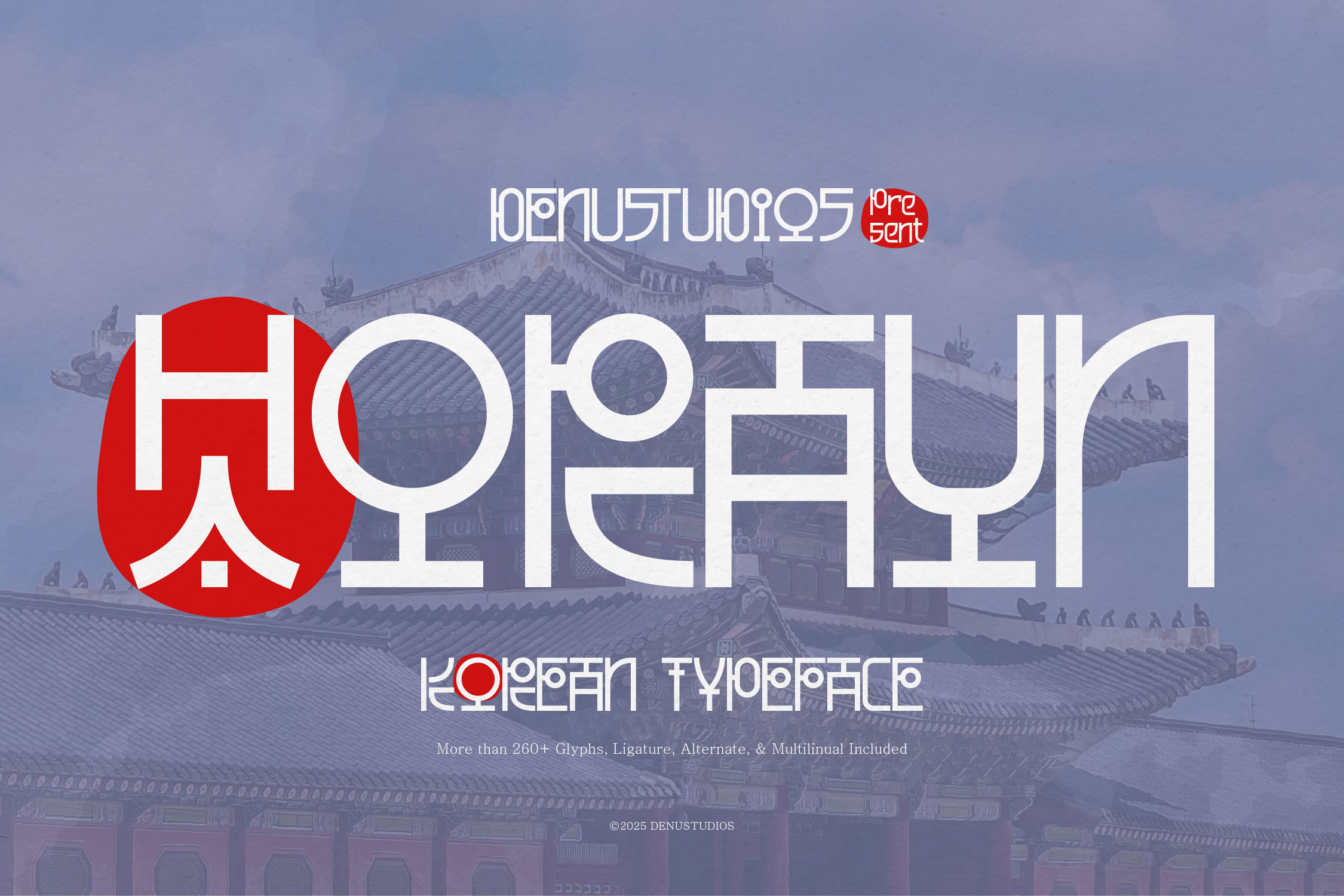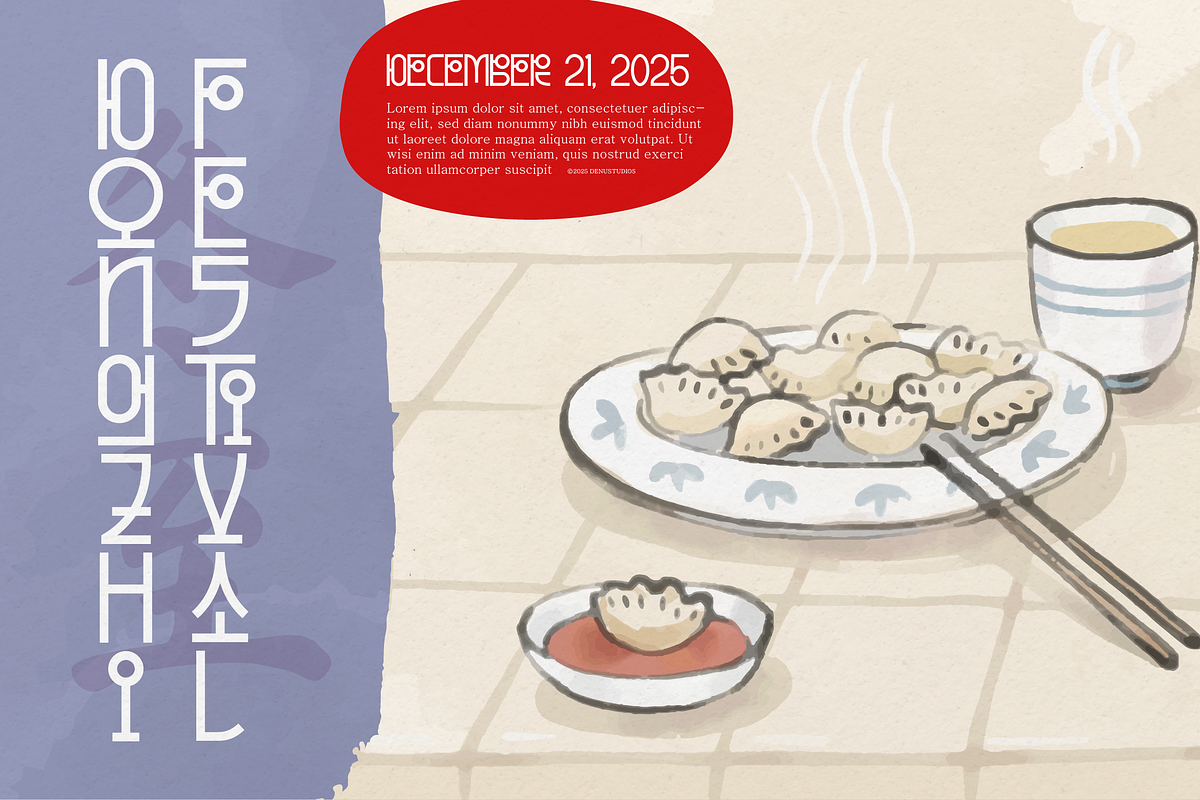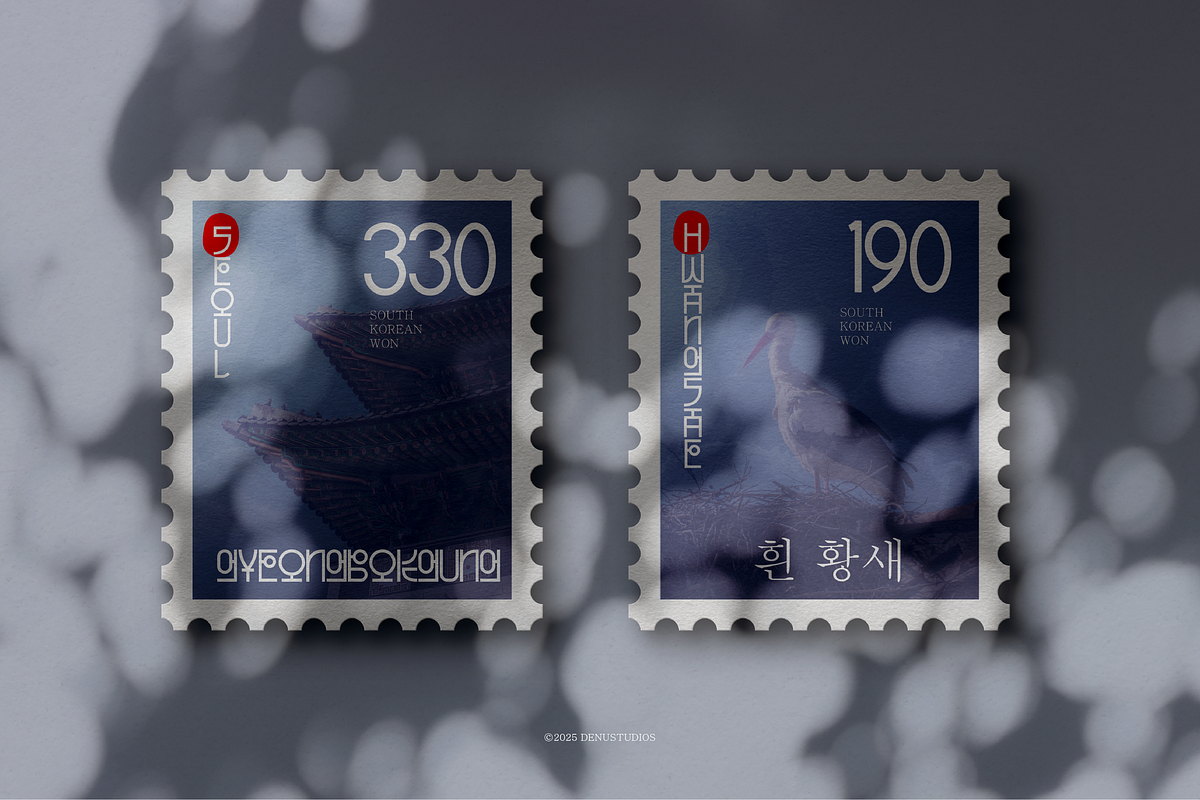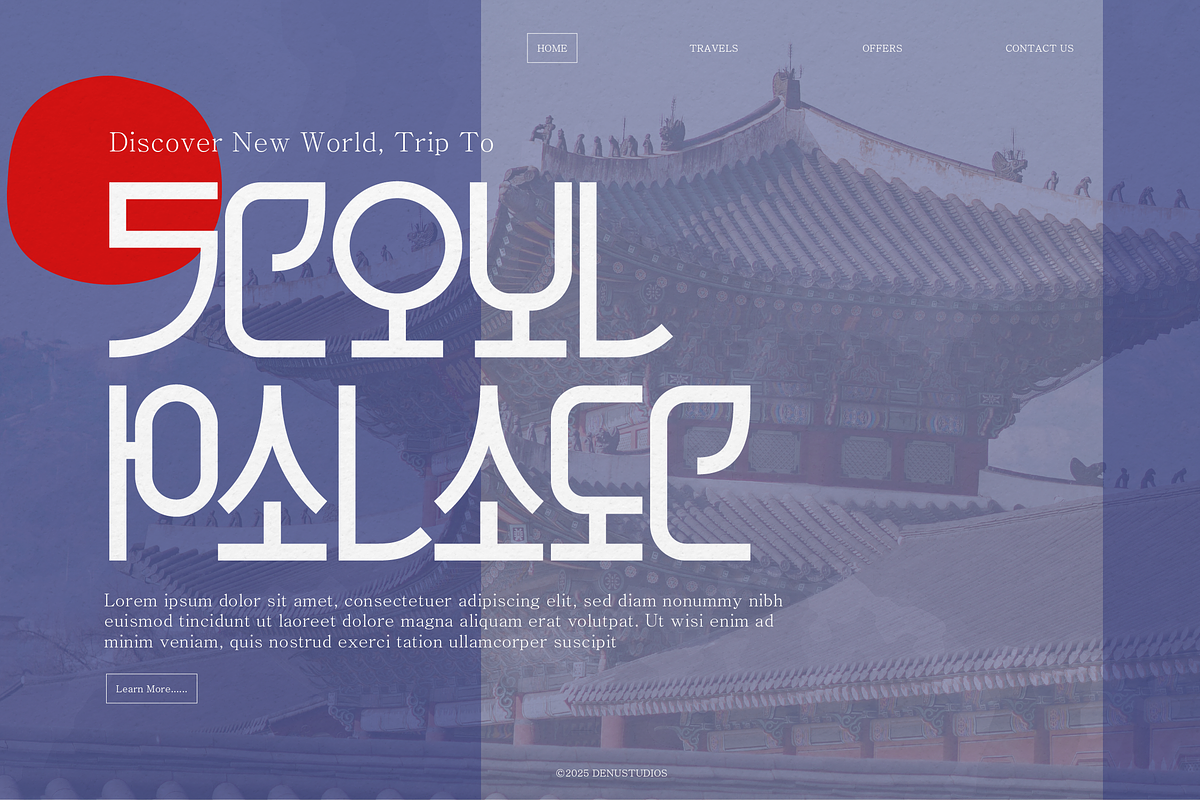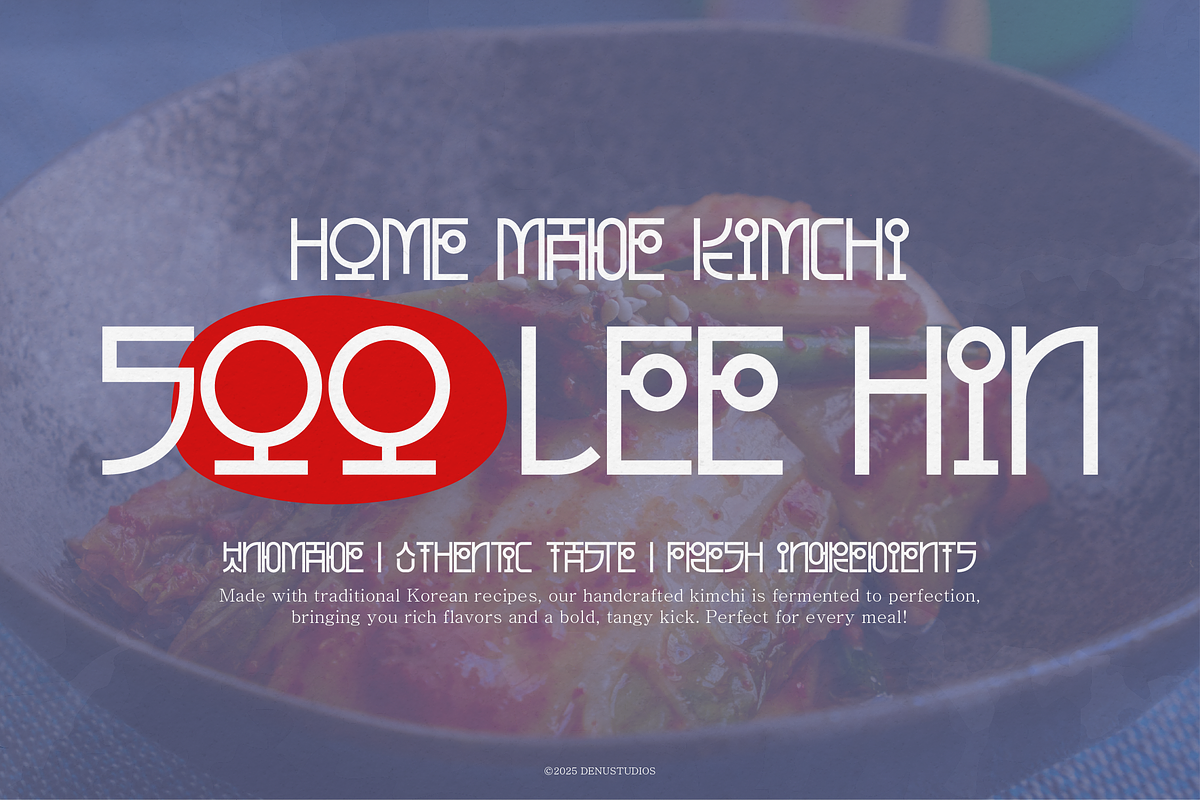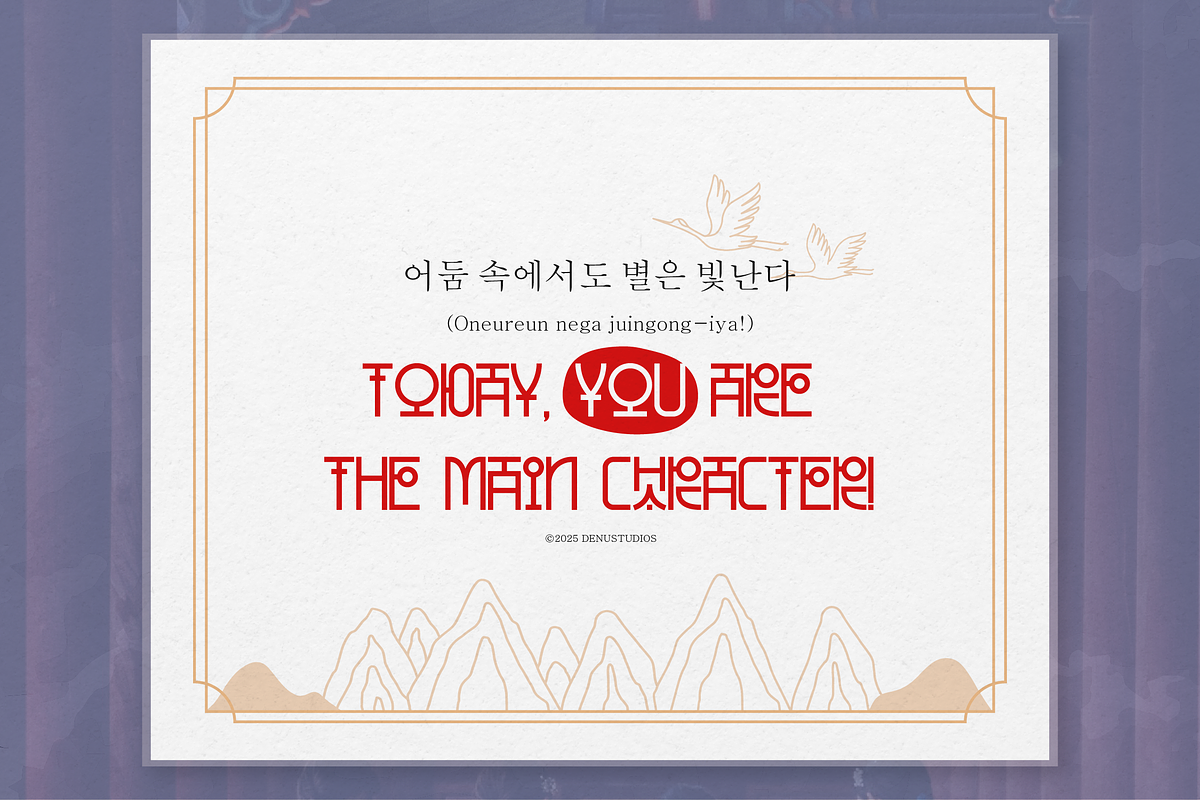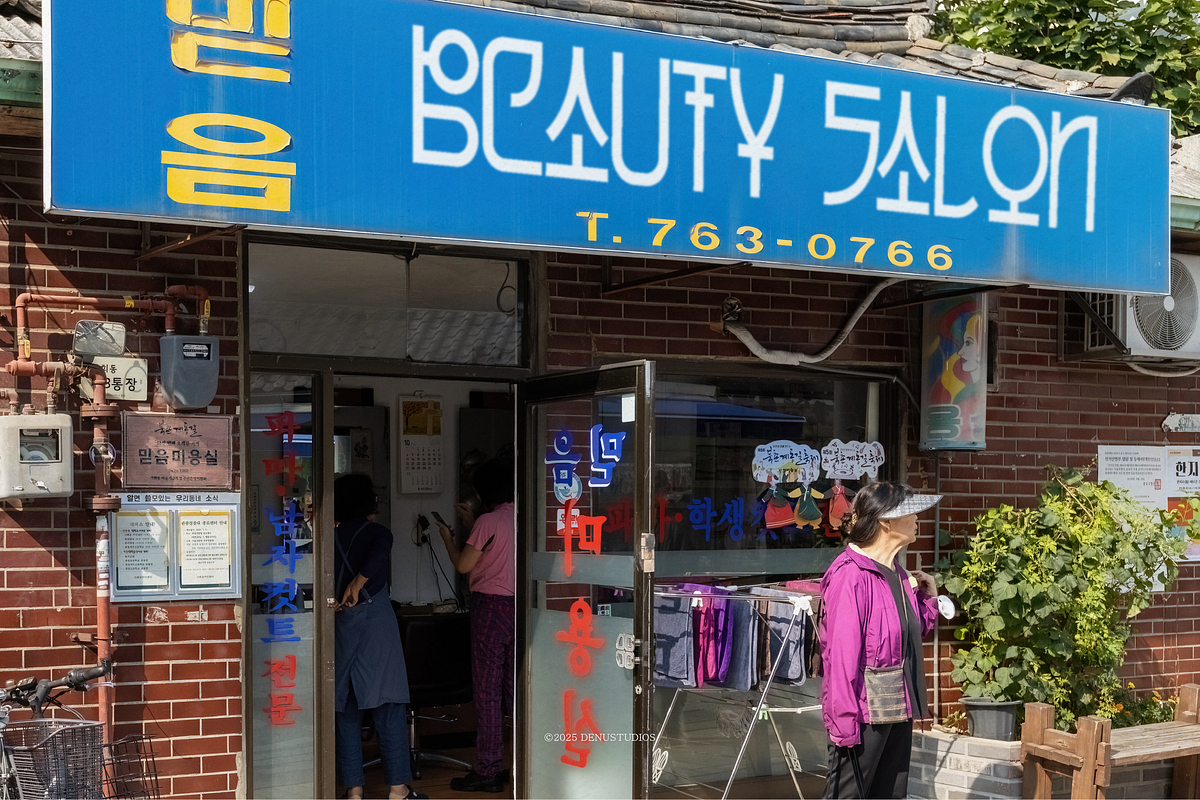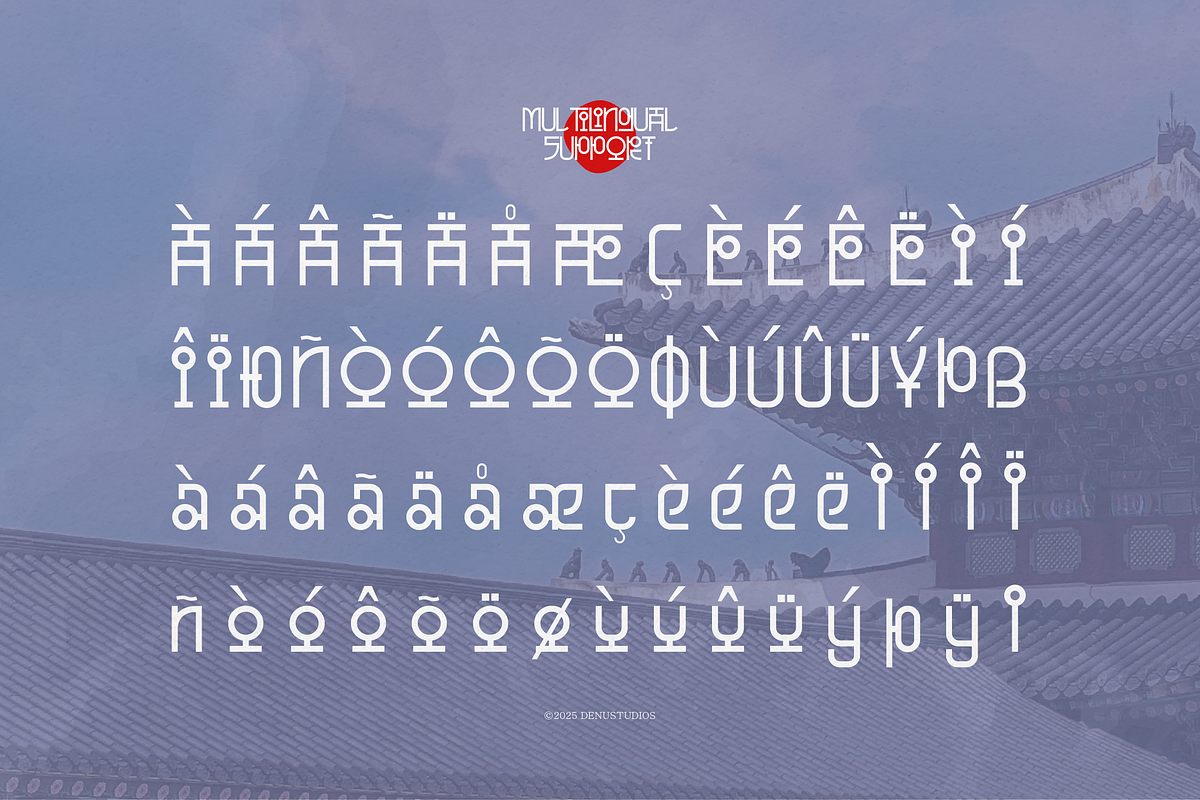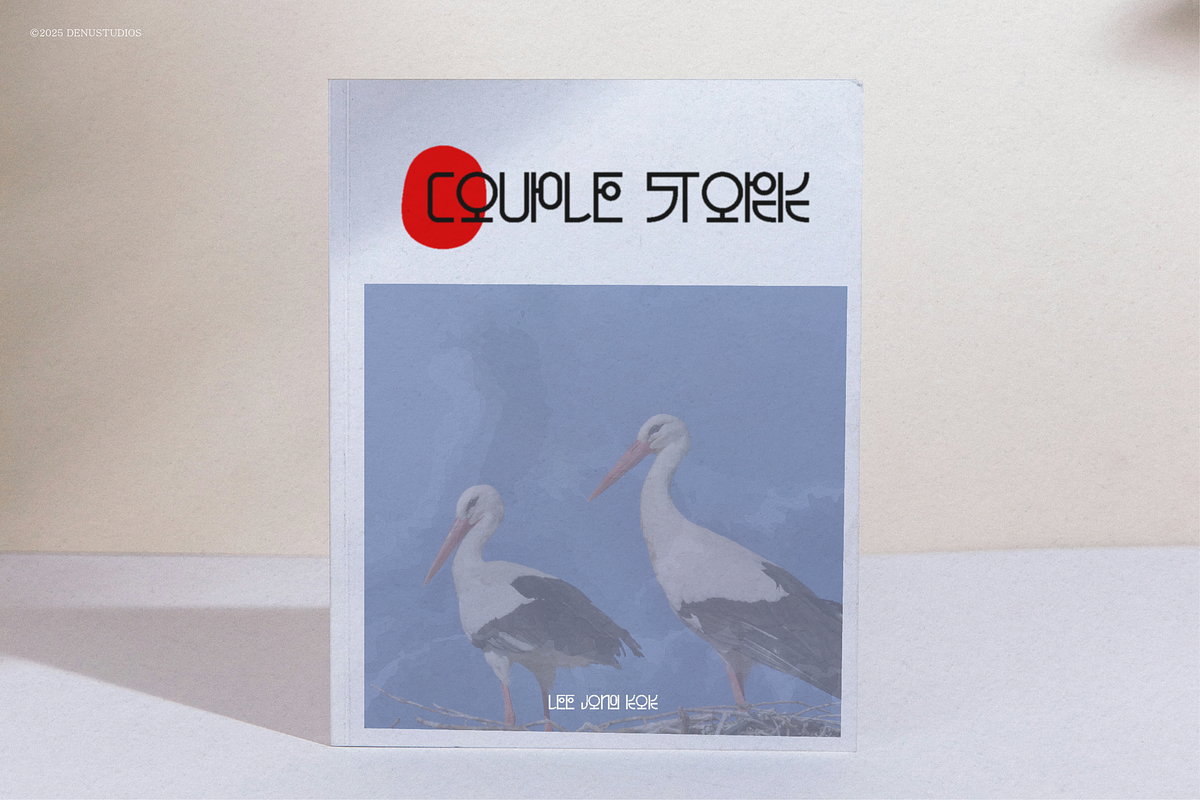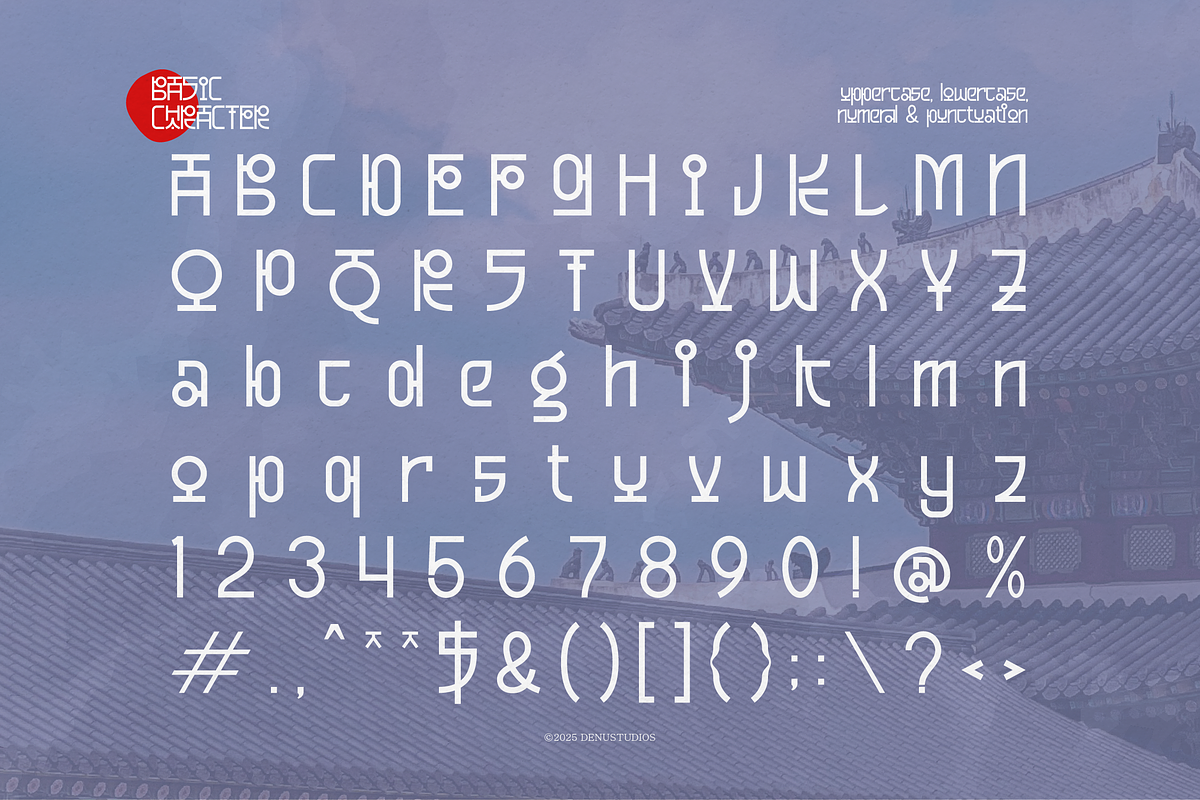
Haoraun | Korean Typeface
Haoraun | Korean Typeface, from Denustudios, suitable for any projects such as: logos, branding projects, homeware designs, product packaging, mugs, quotes, posters, shopping bags, t-shirts, book covers, name card, invitation cards, greeting cards, label, photography, watermark, special events, and all your other lovely projects that need a Korean Typeface taste.